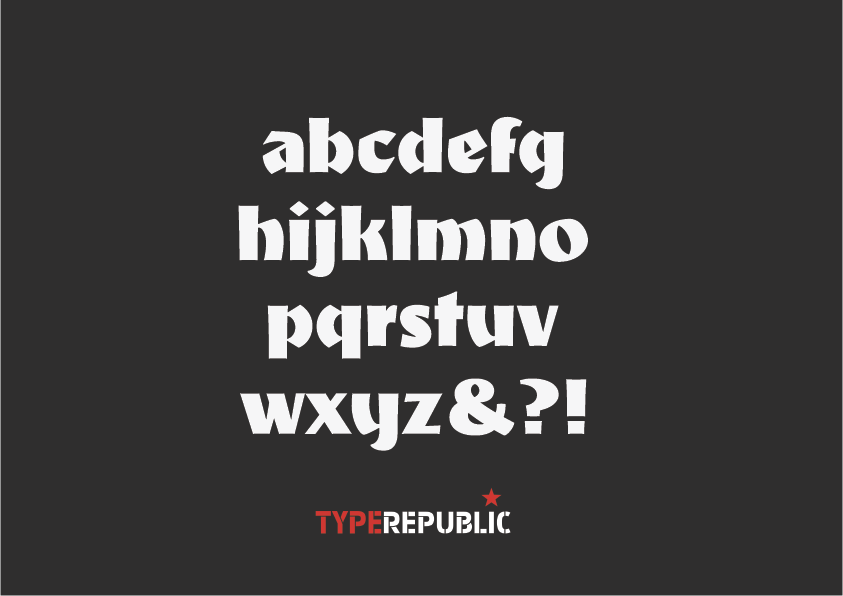
Taüll
“Taüll is inspired on old black lettering devices. A southern flavored typeface that transfers us to the heart of Pyrenees mountains, with its tiny villages, Romanesque churches, old huts, its dark forests with dragons and princesses. An idyllic vision of life from the mountain slow pace where cattle graze on the open meadows and birds sing. Those lost paradises that we can revive thanks to the natural flavor of Taüll’s character outlines.
Taüll is based on those alphabets that still lie on the silence of the stones where they were carved. It has blunt, angular and highly striking capital letters that stand out wherever you place them thanks to the interaction of angled forms and a subtly humanistic irregularity that increase its visibility.” (Andrea Balius)
Designed by the talented - Andreu Balius, 2007